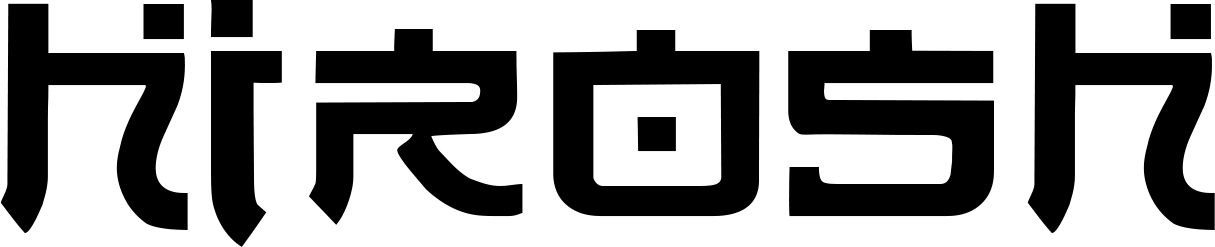
Hirosh Font
Did you know you can write in Japanese but read the final text in English? Curious to know how that works? Well, all it costs is one of the Japanese fonts and Hirosh here is a great one, evoking some cultural vibes.
Designed to mimic Asian letters, some of its peculiar characters are not exactly easy to recognize. There’s no more than one edition of each character, but they do take care of your banners, T-shirts, and games most brilliantly.
Hirosh (Dingbats) True Type Font is a font made up of Unusual modernistic letters with a Japanese flavor, and Dingbats patterned after Japanese crests and design motifs. Contains numbers, letters, punct. and many “dingbats”.